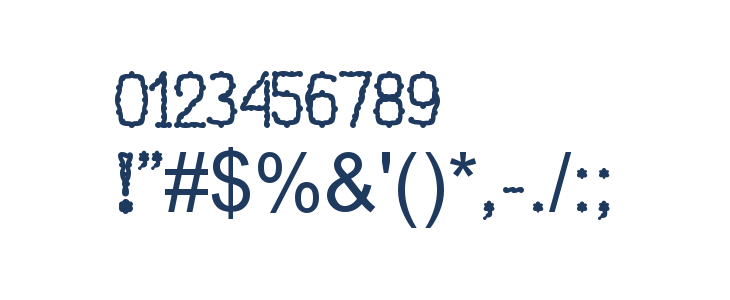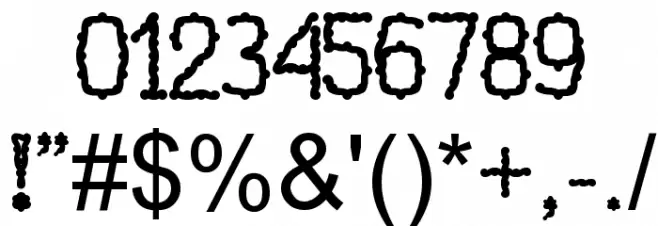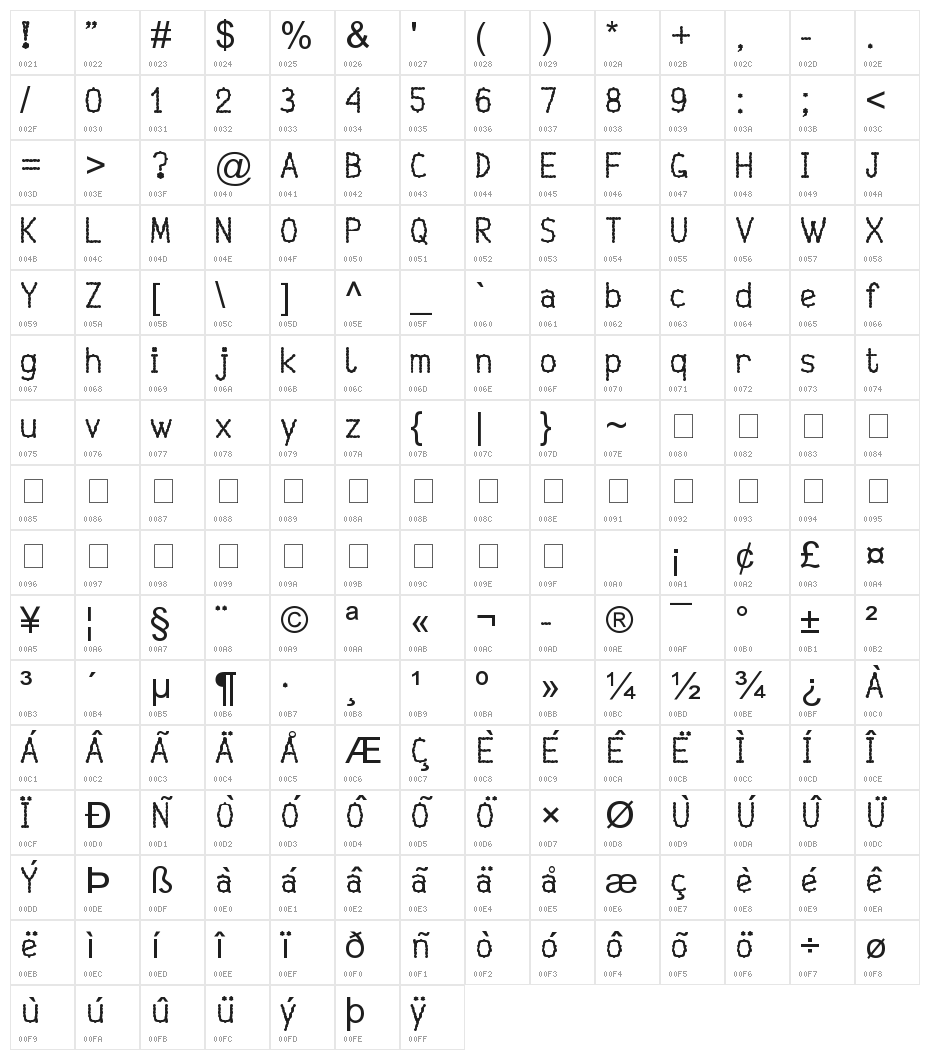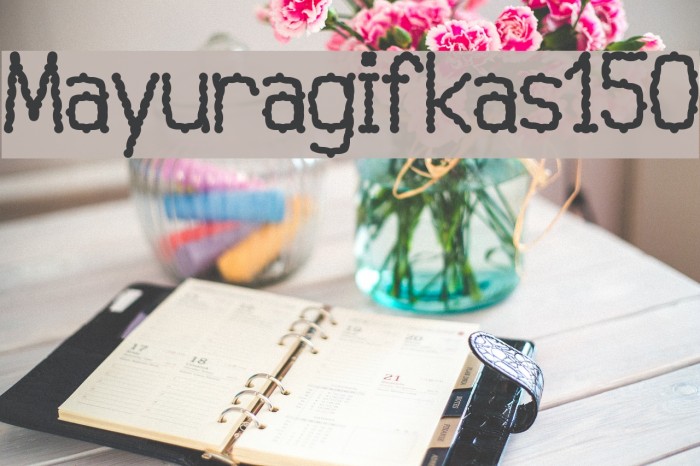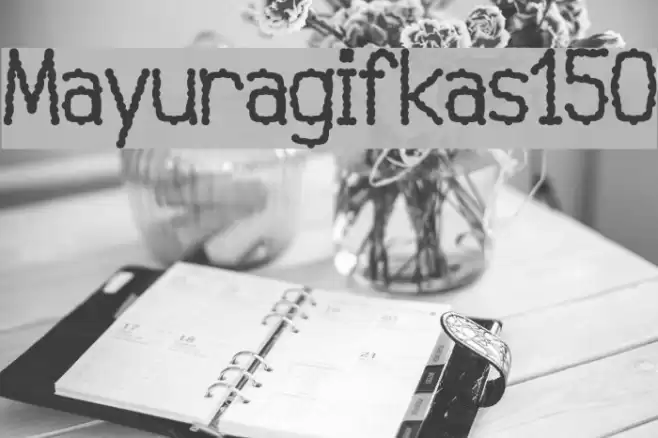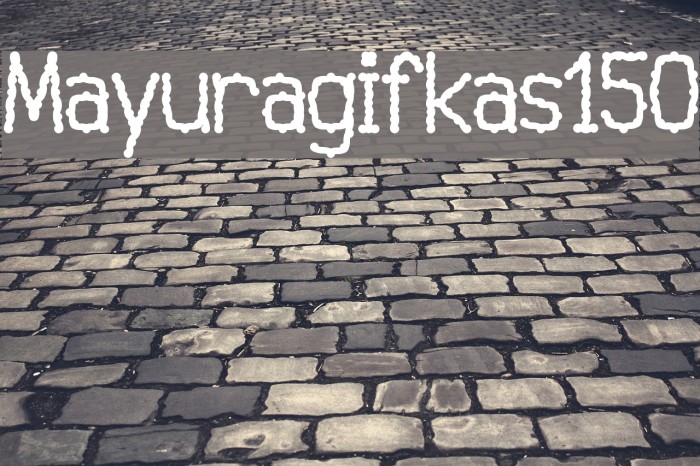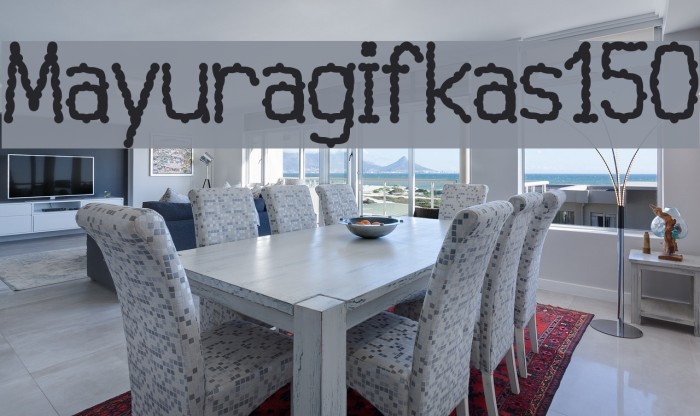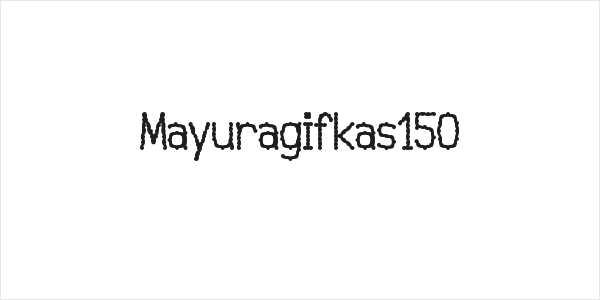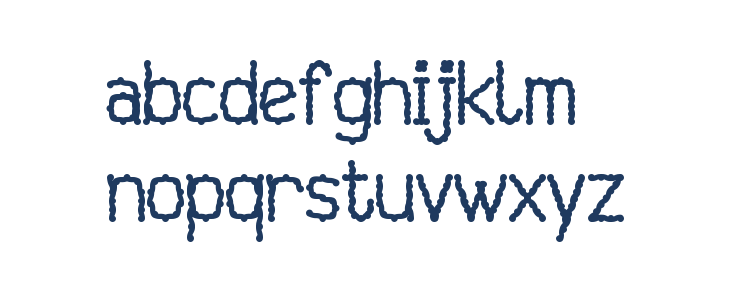
Mayuragifkas150 Font
Mayuragifkas150 Description
This font features a unique, playful design with characters composed of small, rounded, bubble-like elements. The letters have a consistent thickness, giving them a uniform appearance, while the rounded edges add a friendly and approachable feel. The uppercase and lowercase letters maintain a similar style, ensuring readability and cohesion. The numbers and special characters follow the same design principles, making them easily recognizable. This font stands out due to its decorative and whimsical nature, making it suitable for creative and informal projects.